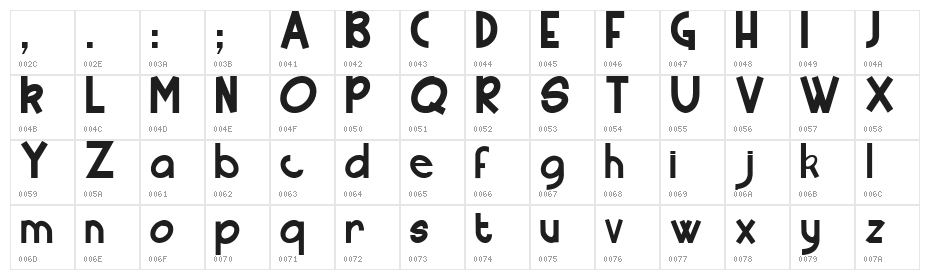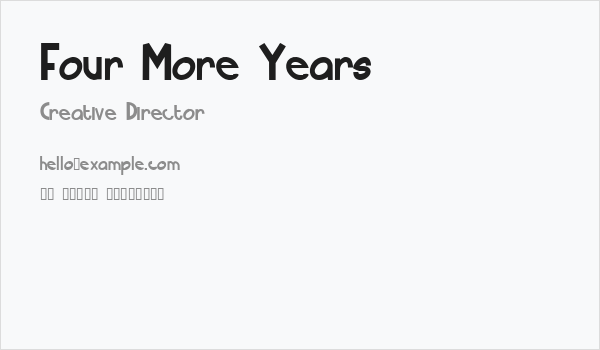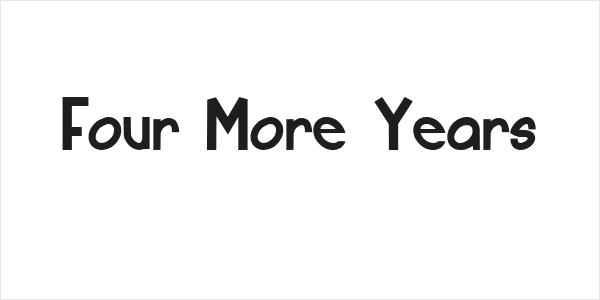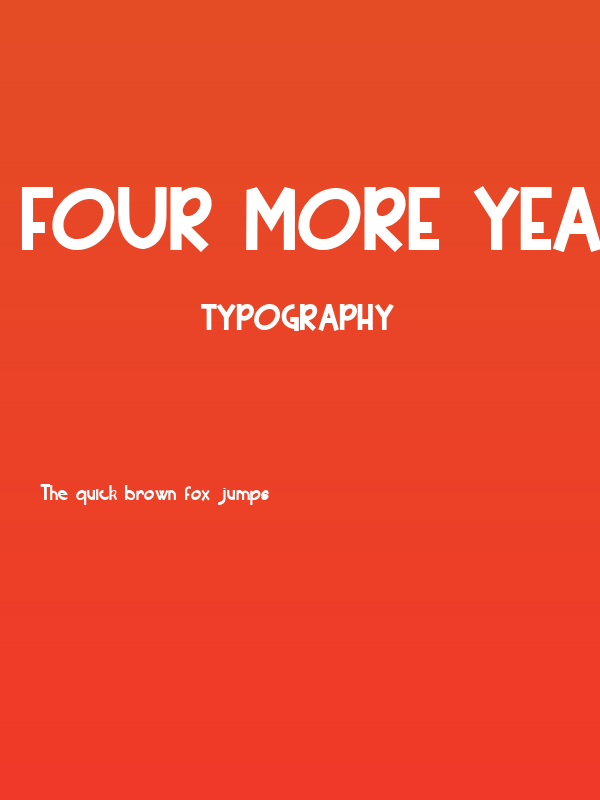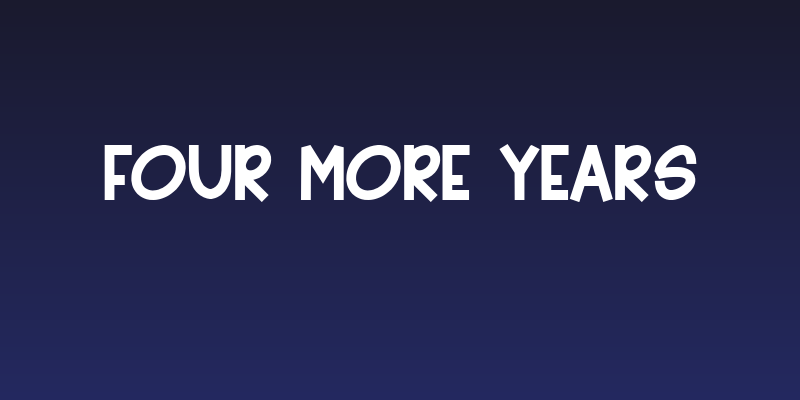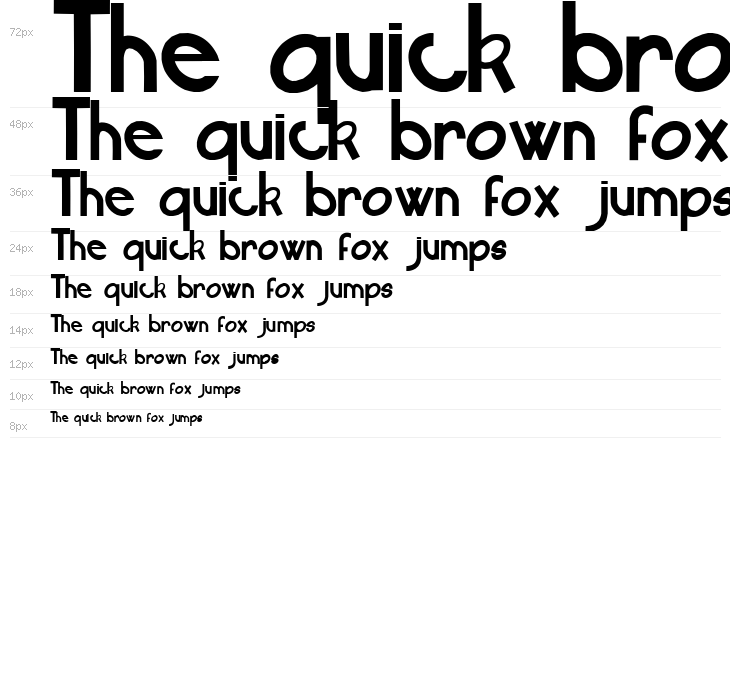
Four More Years Font
Four More Years Description
This font features a bold and geometric style with a strong presence. The uppercase letters are characterized by their thick strokes and angular shapes, creating a modern and assertive look. The lowercase letters maintain a similar geometric structure, offering a cohesive appearance across different text cases. The numbers and special characters are designed to match the boldness and angularity of the alphabet, ensuring consistency throughout. This font's design is ideal for making a statement, with its clear and impactful visual style.